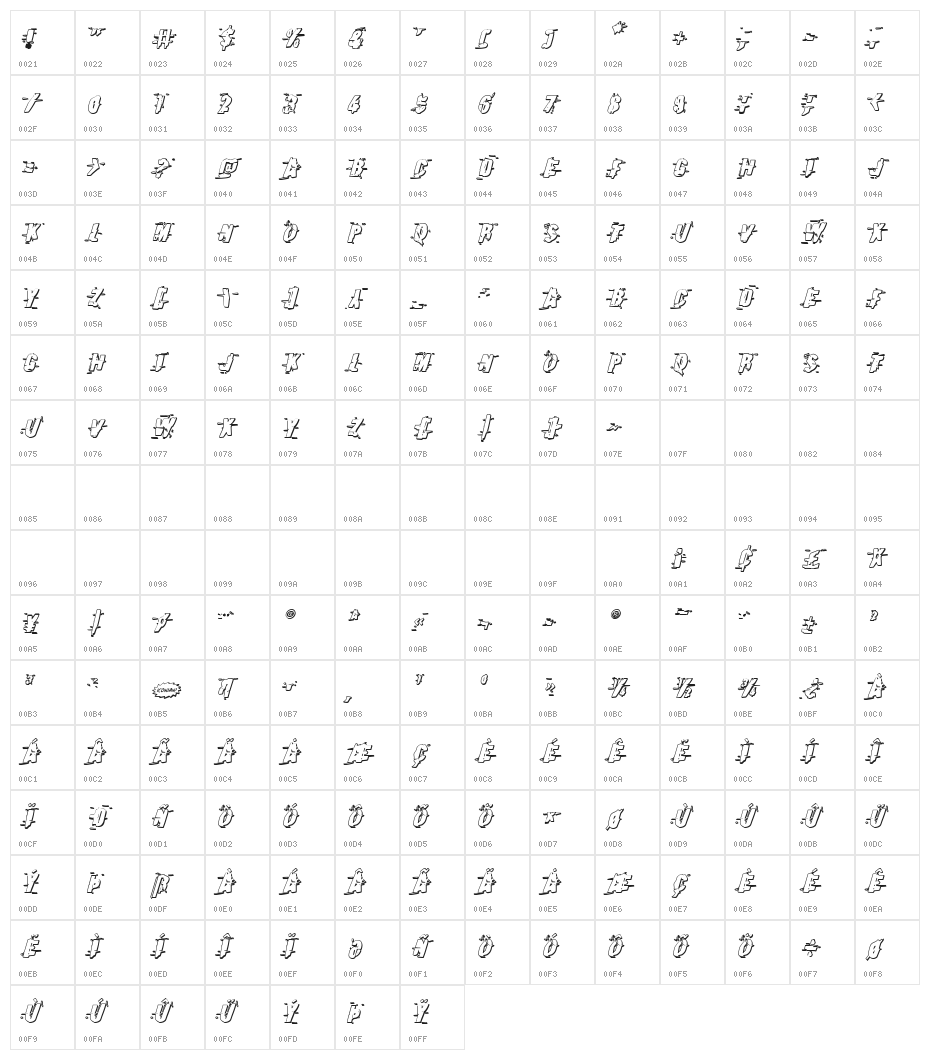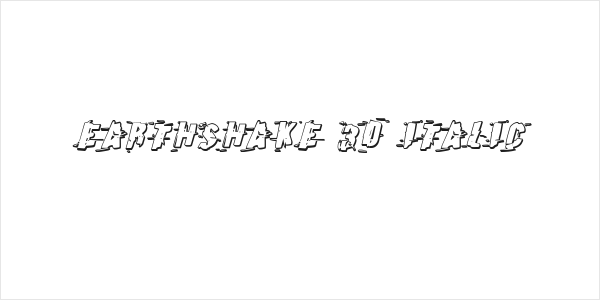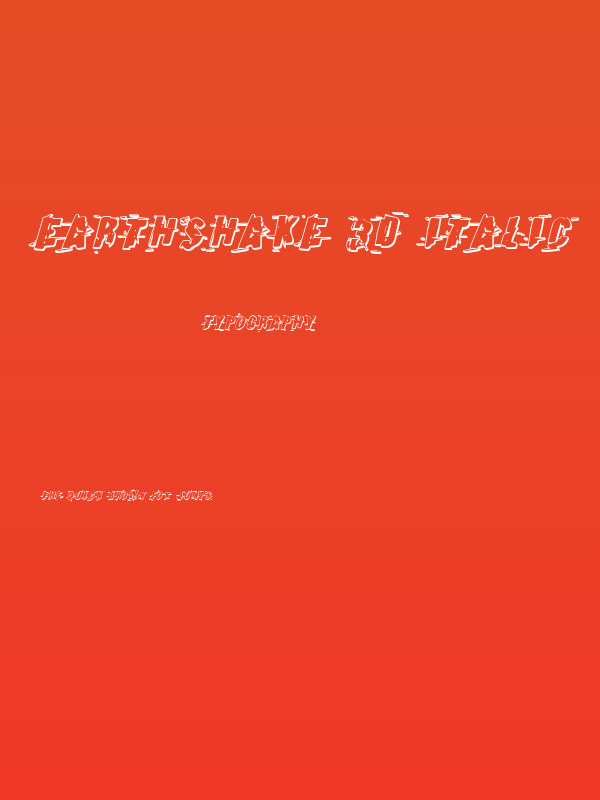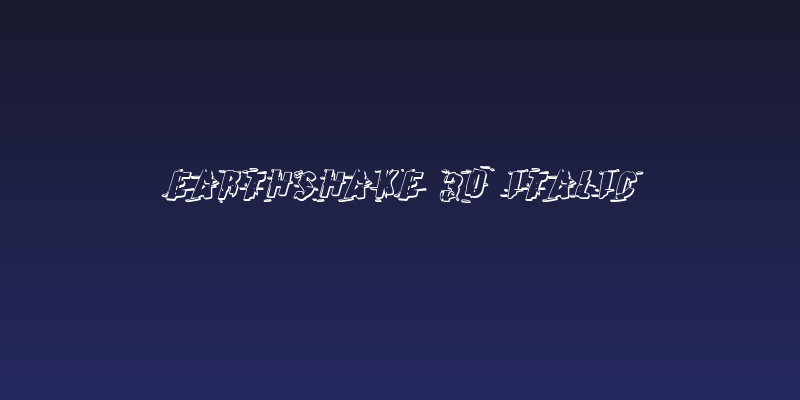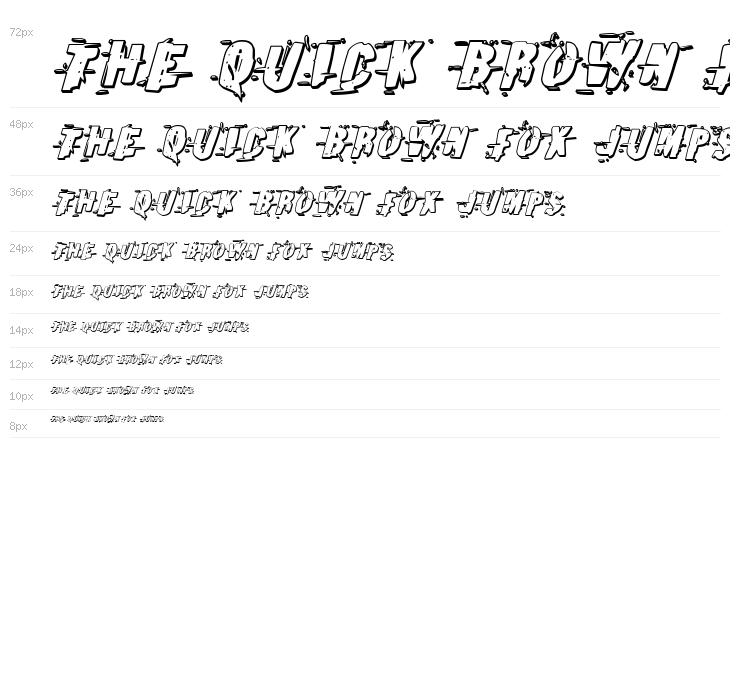
Earthshake 3D Italic Font
Earthshake 3D Italic Description
This font features a bold, dynamic 3D effect with an italic slant, giving it a sense of movement and energy. The characters are designed with a distressed, fragmented appearance, adding a rugged and adventurous feel. The bold strokes and sharp angles enhance its striking presence, making it ideal for attention-grabbing designs. The uppercase and lowercase letters maintain a consistent style, while the numbers and special characters complement the overall aesthetic. This font is perfect for projects that require a bold statement and a touch of edginess.
| Proposed Projects | Ideal for posters, video game titles, adventure-themed graphics, and edgy branding. |